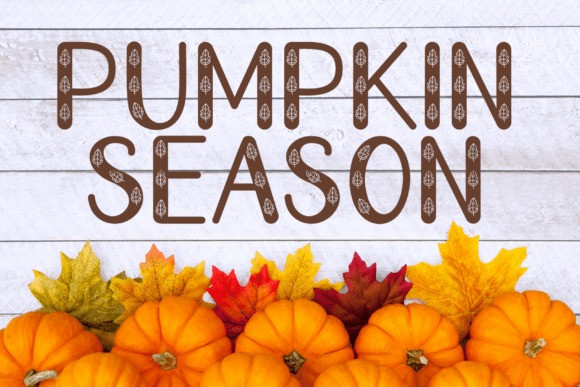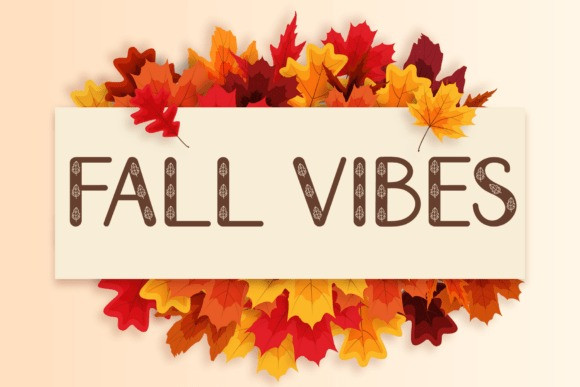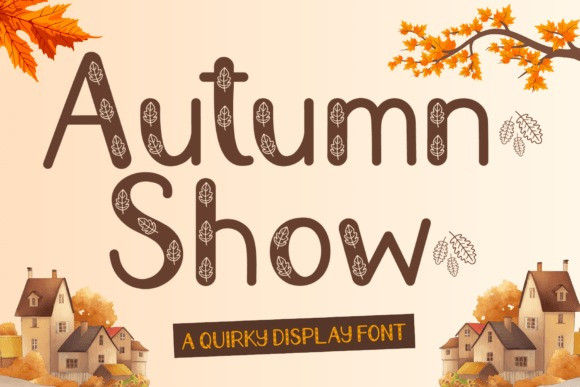
Autumn Show Font
Autumn Show Font, a quirky and fun decorative display font designed especially for fall-inspired projects. With its playful charm, this font captures the coziness of autumn days, from pumpkin patches and falling leaves to the laughter of Halloween parties and family gatherings at Thanksgiving.
Use Autumn Show in posters, flyers, banners, and menus to instantly set the tone for your fall events. It’s also ideal for social media graphics, where attention-grabbing fonts are a must. Crafters will love how well it works on physical projects like t-shirts, mugs, tote bags, or seasonal decor.
Pair it with autumn colors—rich oranges, warm browns, and soft yellows—and your designs will come alive with seasonal personality. Autumn Show is more than just typography; it’s a way to capture memories, moments, and the playful energy of fall. Make your projects shine this autumn with a font designed to show it all.